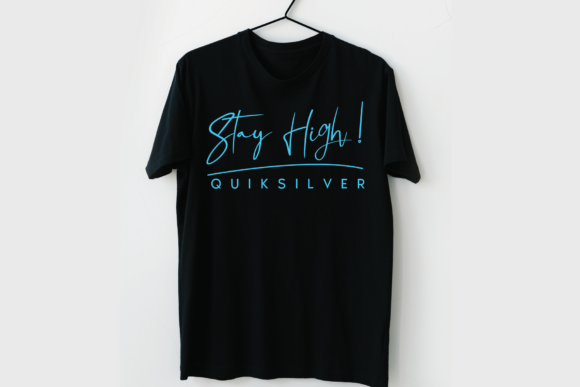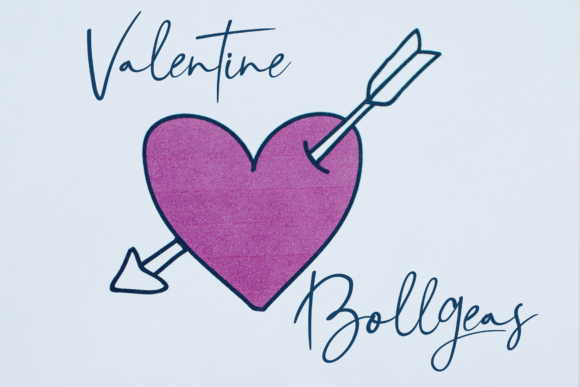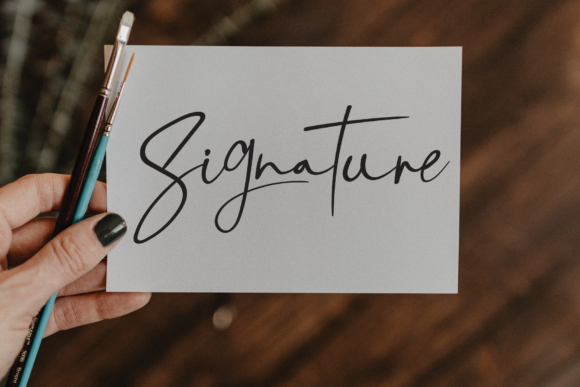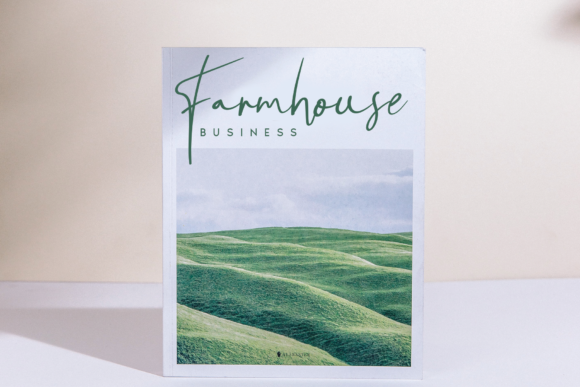
Discover the Charm of Amsterdam Font: A Relaxed and Timeless Handwritten Style
Are you a designer or crafter looking for a unique and captivating font to elevate your creative projects? Look no further than the Amsterdam Font, a relaxed and timeless handwritten font that is sure to steal your heart. With its incredibly distinct and timeless style, Amsterdam Font is the perfect choice for anyone seeking to add a touch of elegance and sophistication to their designs.
The Story Behind Amsterdam Font
Amsterdam Font is a carefully crafted handwritten font that exudes a sense of calmness and serenity. Its relaxed style is reminiscent of a leisurely stroll through the charming streets of Amsterdam, where historic architecture, quaint canals, and vibrant culture come together in perfect harmony. The font’s creator aimed to capture the essence of this beautiful city and infuse it into a font that would inspire designers and crafters to create stunning works of art.
What Makes Amsterdam Font So Special?
So, what sets Amsterdam Font apart from other fonts out there? Here are a few reasons why this font is a cut above the rest:
- Unique and Distinctive Style: Amsterdam Font boasts an unmistakable style that is both elegant and laid-back. Its carefully crafted letterforms are designed to evoke a sense of nostalgia and warmth, making it perfect for projects that require a personal touch.
- Timeless Appeal: Unlike trendy fonts that quickly go out of style, Amsterdam Font has a timeless quality that ensures it will remain relevant for years to come. Whether you’re designing a logo, creating a poster, or crafting a handmade card, this font will add a touch of sophistication and refinement to your work.
- Versatility: Amsterdam Font is incredibly versatile and can be used for a wide range of projects, from digital designs to handmade crafts. Its relaxed style makes it perfect for creative endeavors that require a personal and human touch.
How to Use Amsterdam Font in Your Designs
Now that you’re smitten with Amsterdam Font, let’s explore some ways you can incorporate it into your designs:
- Logos and Branding: Use Amsterdam Font to create a unique and memorable logo that captures the essence of your brand. Its distinctive style will help you stand out from the competition and establish a strong visual identity.
- Posters and Flyers: Add a touch of elegance to your posters and flyers with Amsterdam Font. Its timeless appeal ensures that your designs will remain relevant long after the initial campaign is over.
- Handmade Crafts: Amsterdam Font is perfect for crafters who want to add a personal touch to their handmade creations. Use it to create beautiful cards, gift tags, and other paper crafts that will delight friends and family.
Tips and Tricks for Working with Amsterdam Font
To get the most out of Amsterdam Font, here are some tips and tricks to keep in mind:
- Experiment with Font Sizes: Amsterdam Font looks great in a variety of font sizes, from large headings to smaller body text. Experiment with different sizes to find the perfect balance for your design.
- Pair it with Other Fonts: Don’t be afraid to pair Amsterdam Font with other fonts to create a unique and visually appealing combination. Its relaxed style pairs well with bold and modern fonts, as well as other handwritten styles.
- Use it for Display Text: Amsterdam Font is perfect for display text, such as headings and titles. Its distinctive style will grab attention and draw the viewer in.
In conclusion, Amsterdam Font is a relaxed and timeless handwritten font that is sure to capture your heart. With its incredibly distinct and timeless style, it’s the perfect choice for designers and crafters looking to add a touch of elegance and sophistication to their creative projects. Whether you’re designing a logo, creating a poster, or crafting a handmade card, Amsterdam Font is the perfect choice. So why wait? Fall in love with Amsterdam Font and start creating spectacular designs today!